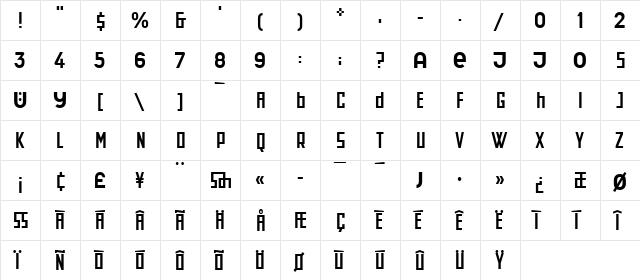
SchwittersArchiType Regular
Design Context for SchwittersArchiType Typeface
SchwittersArchiType offers clean, dependable letterforms without strong stylistic allegiance, making it a practical choice for designers who need flexibility.